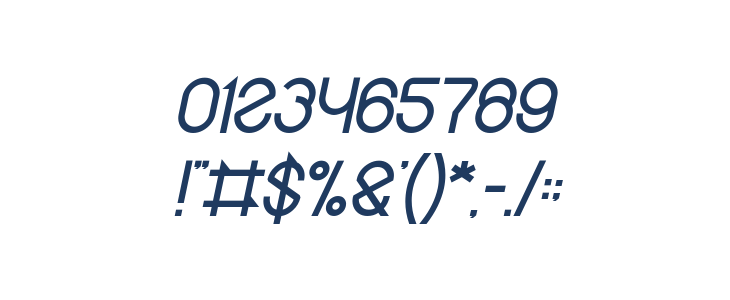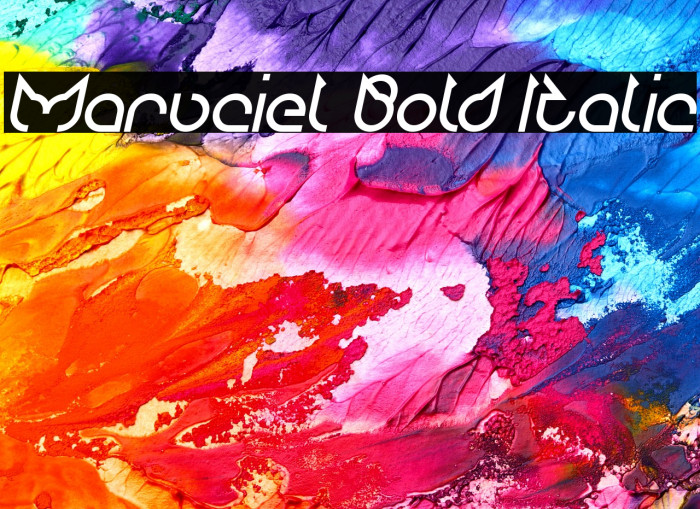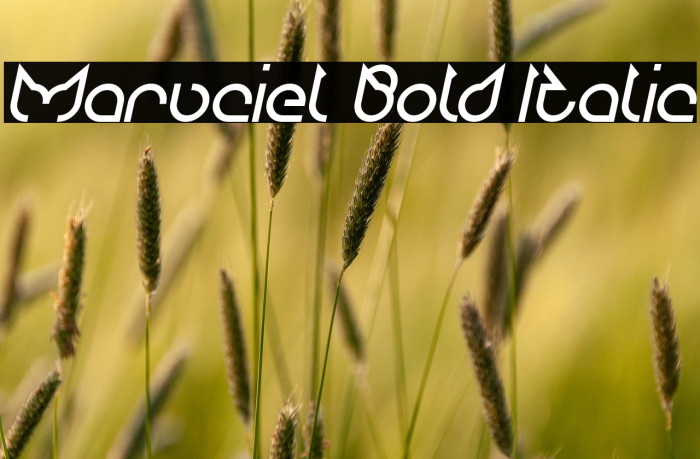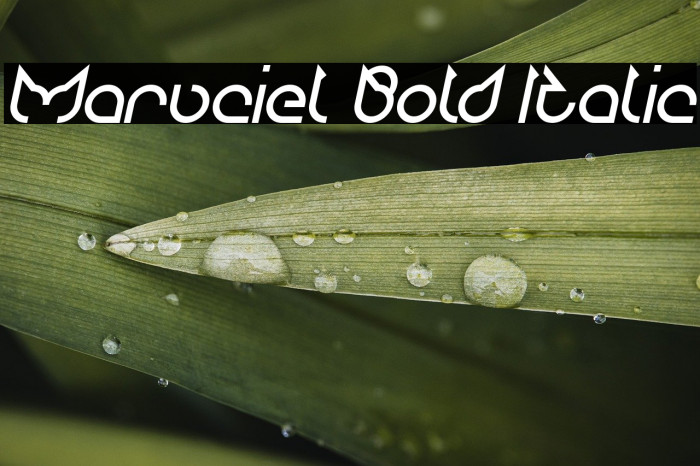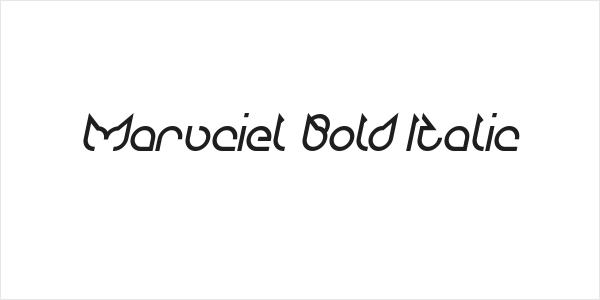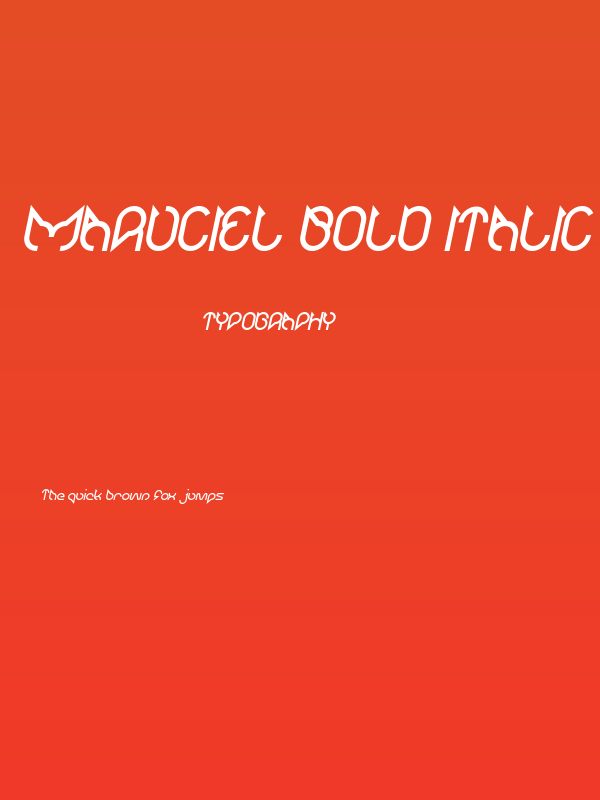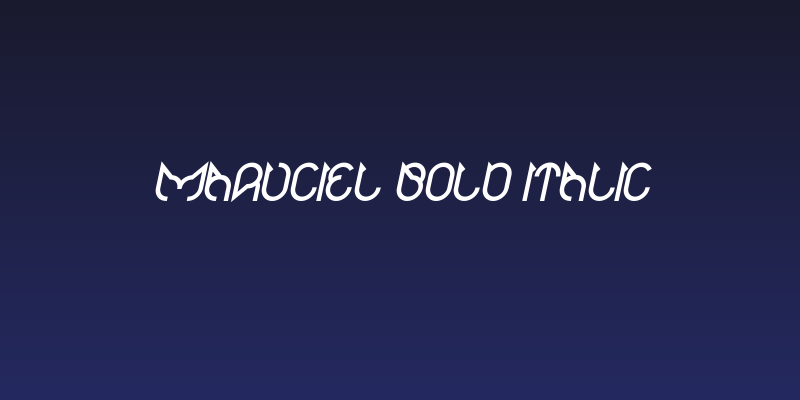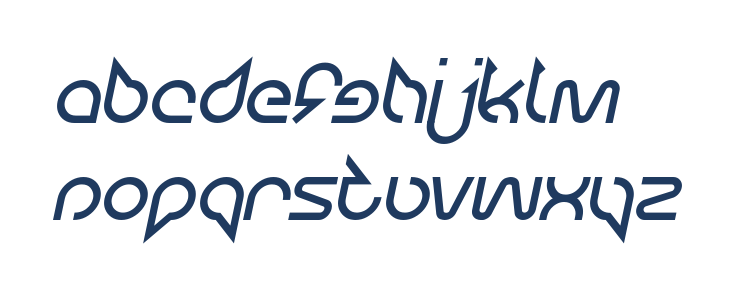
Maruciel Bold Italic Font
Maruciel Bold Italic Description
This font features a bold and italic style with a modern, dynamic appearance. The characters are uniquely designed with sharp angles and smooth curves, creating a sense of movement and energy. The uppercase letters are distinct with a futuristic flair, while the lowercase letters maintain a consistent flow. Numbers and special characters are crafted to match the overall aesthetic, making them suitable for a variety of design purposes. The font's boldness and italic slant give it a strong presence, ideal for capturing attention.
| Proposed Projects | Ideal for branding, logos, headlines, and posters that require a modern and energetic look. |